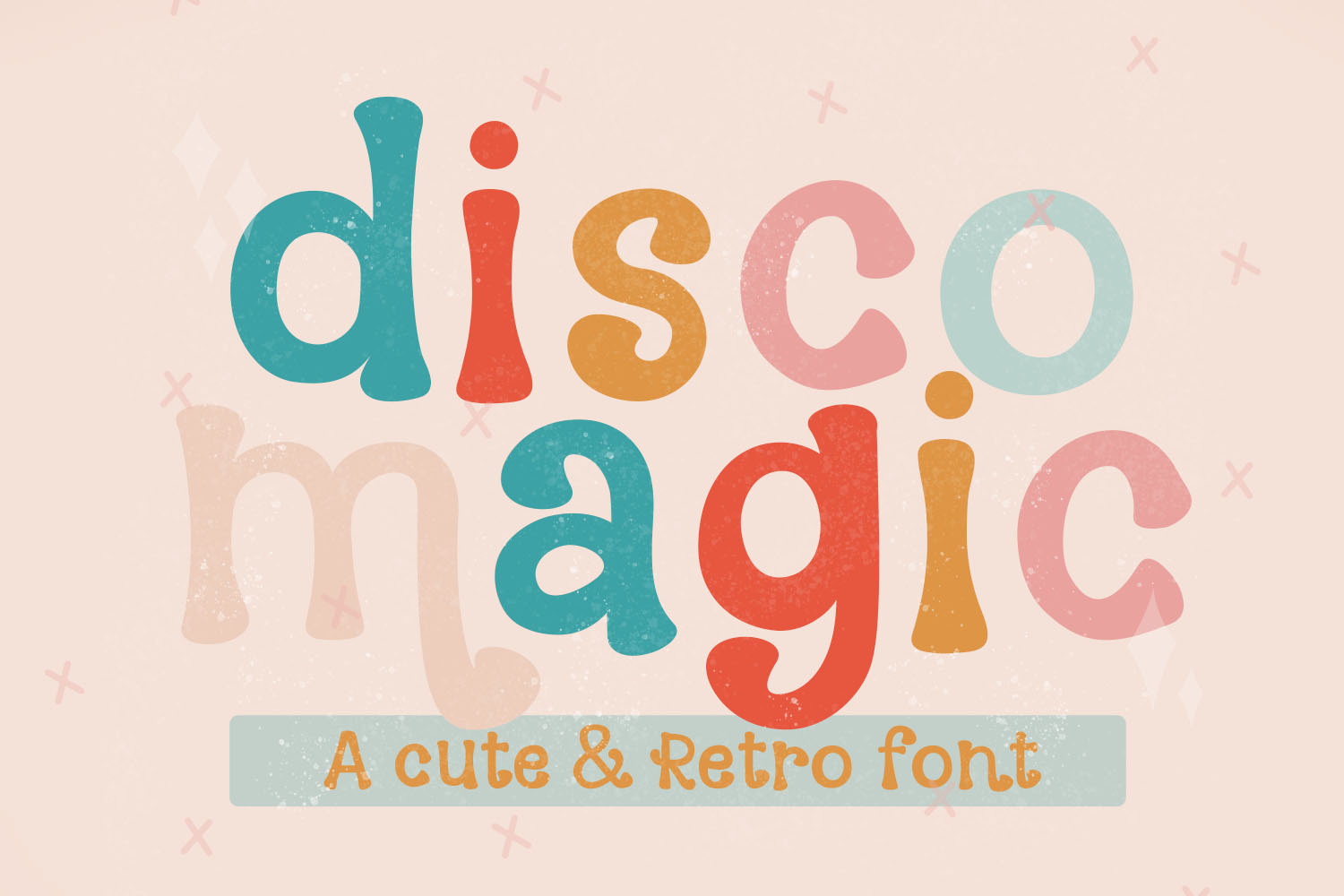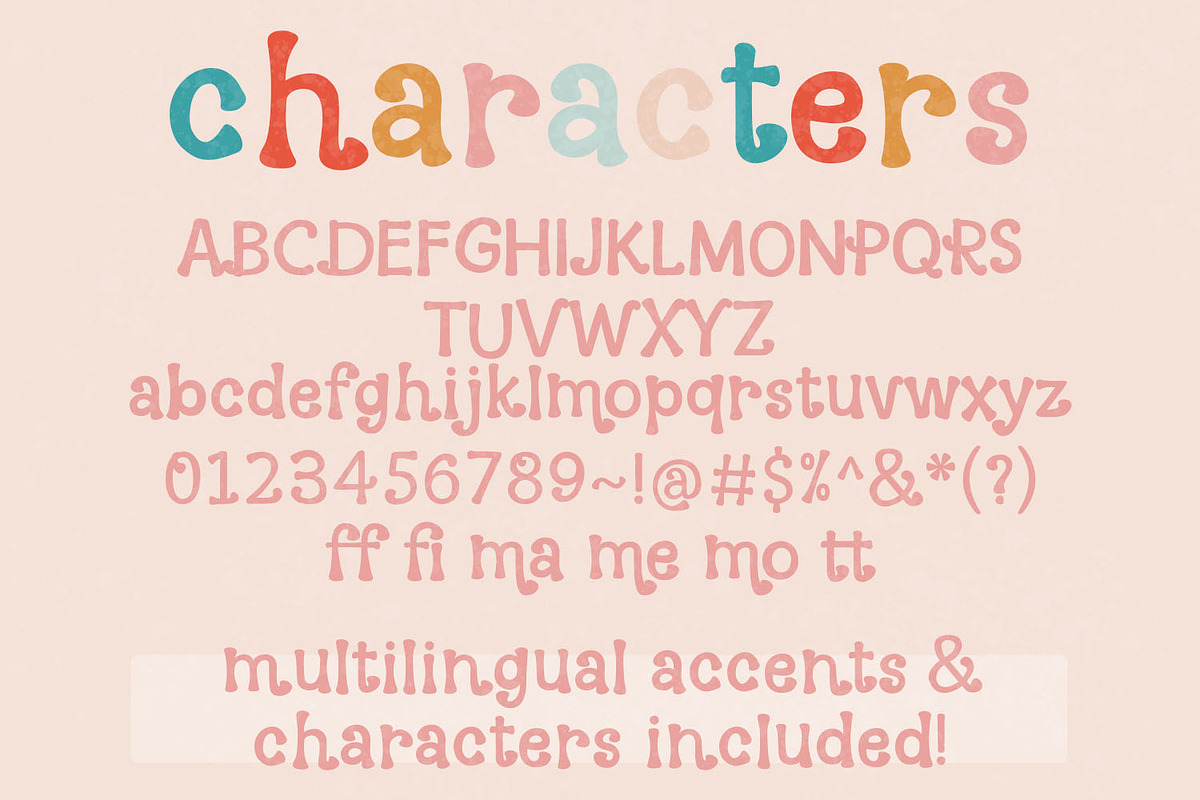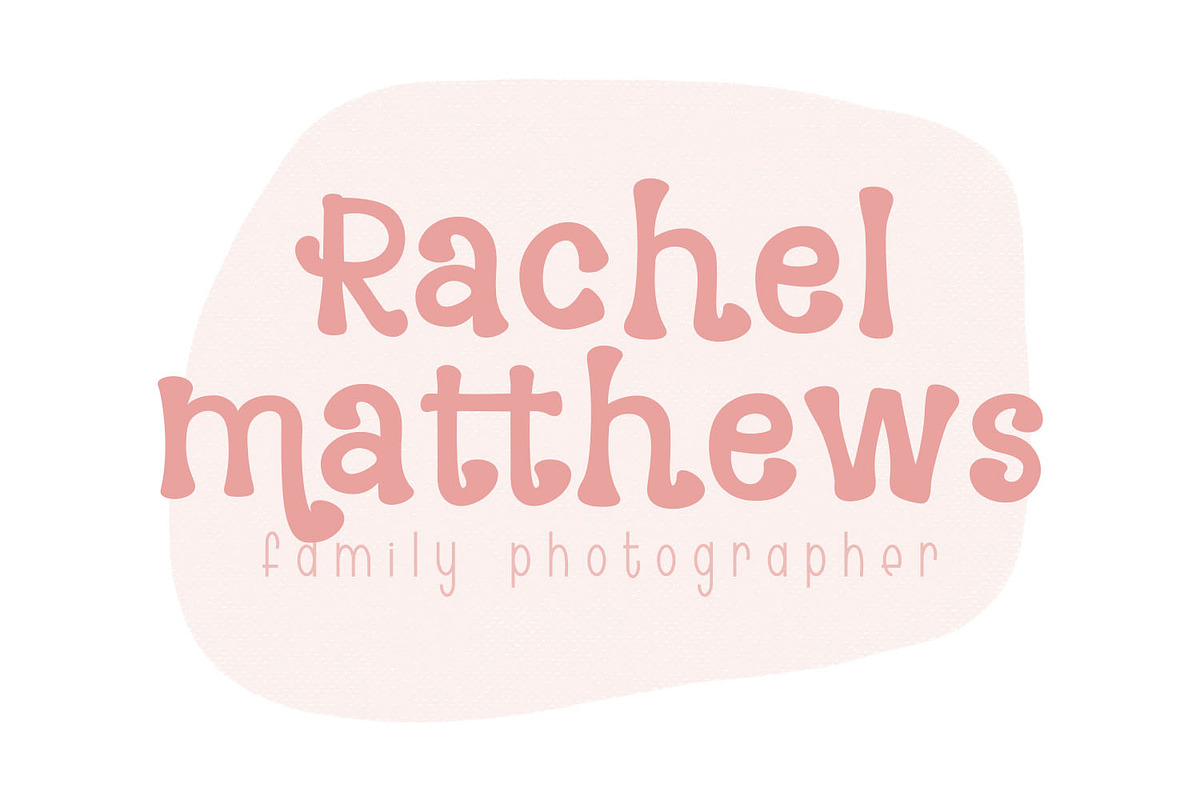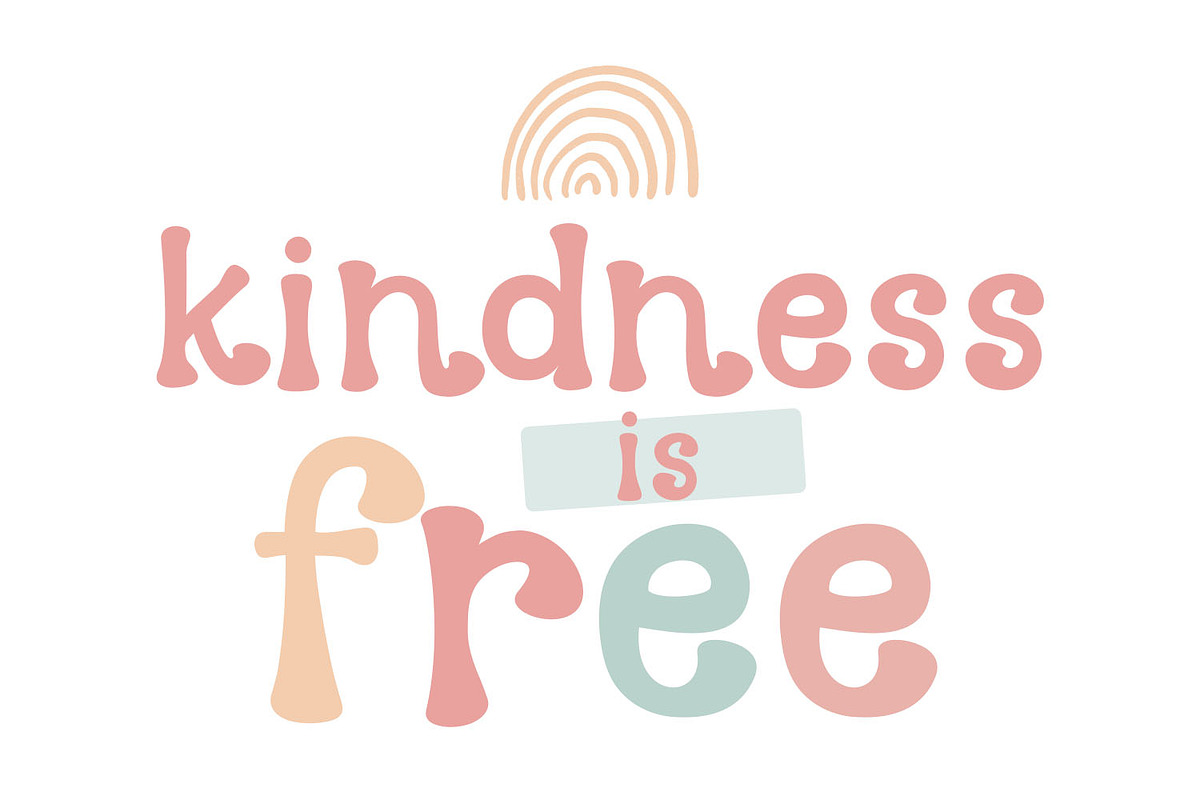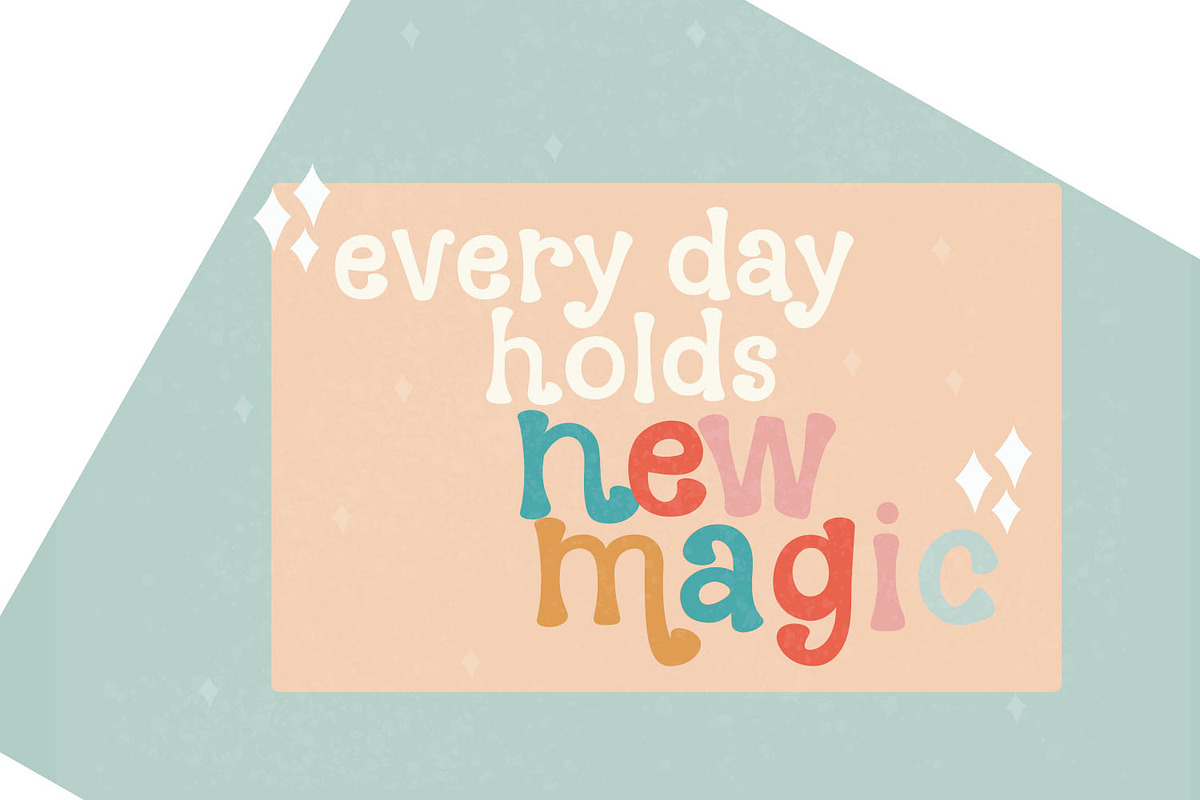
Disco Magic - A Retro Style Font
Use this cute & retro style font for all of your creative needs! Making SVGs, tumblers, graphic design projects, shirts, wood signs, cards, social media, stickers, blog posts, and much more! This is a smooth font - perfect for cut machines like Cricut and Silhouette!